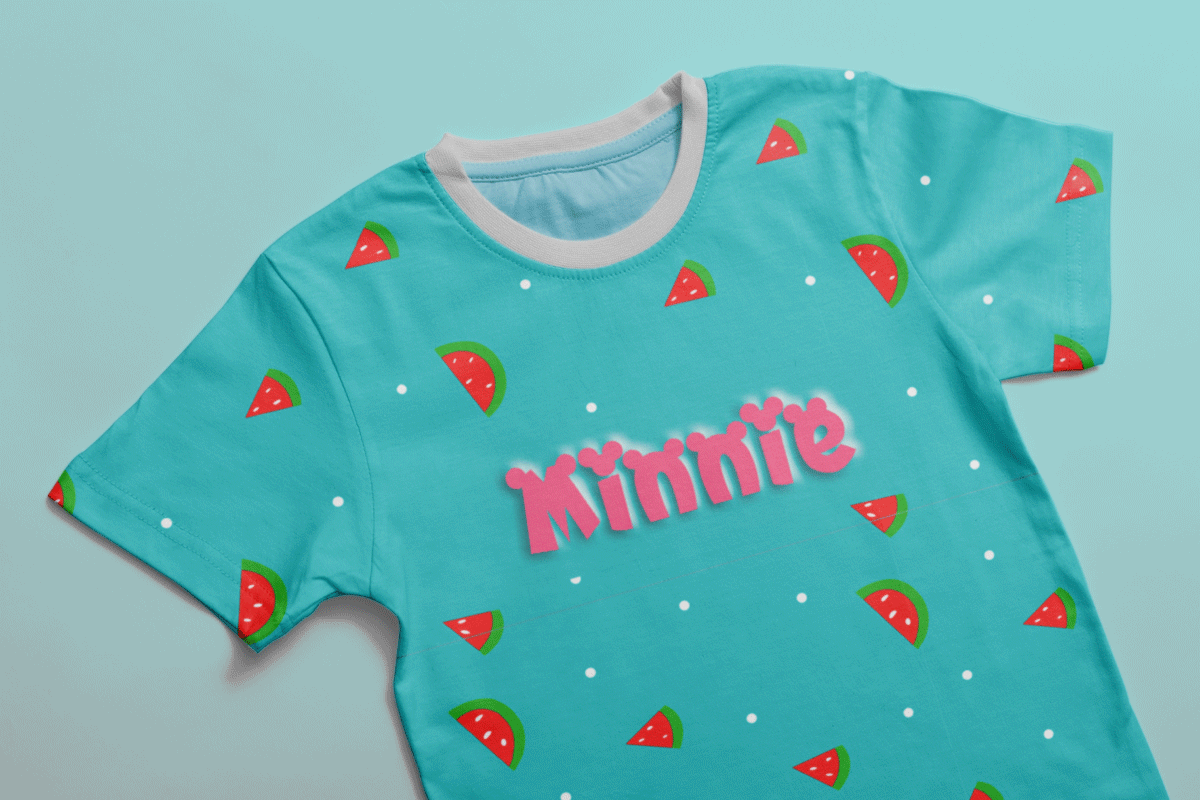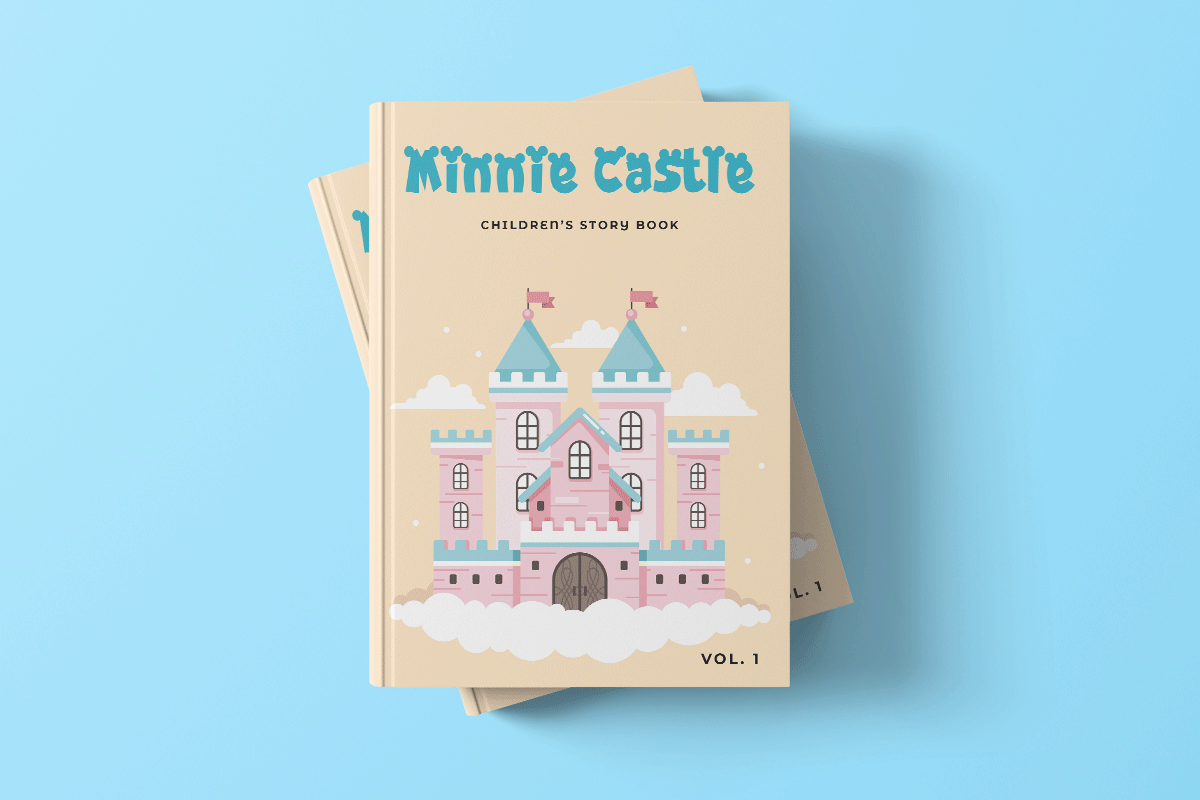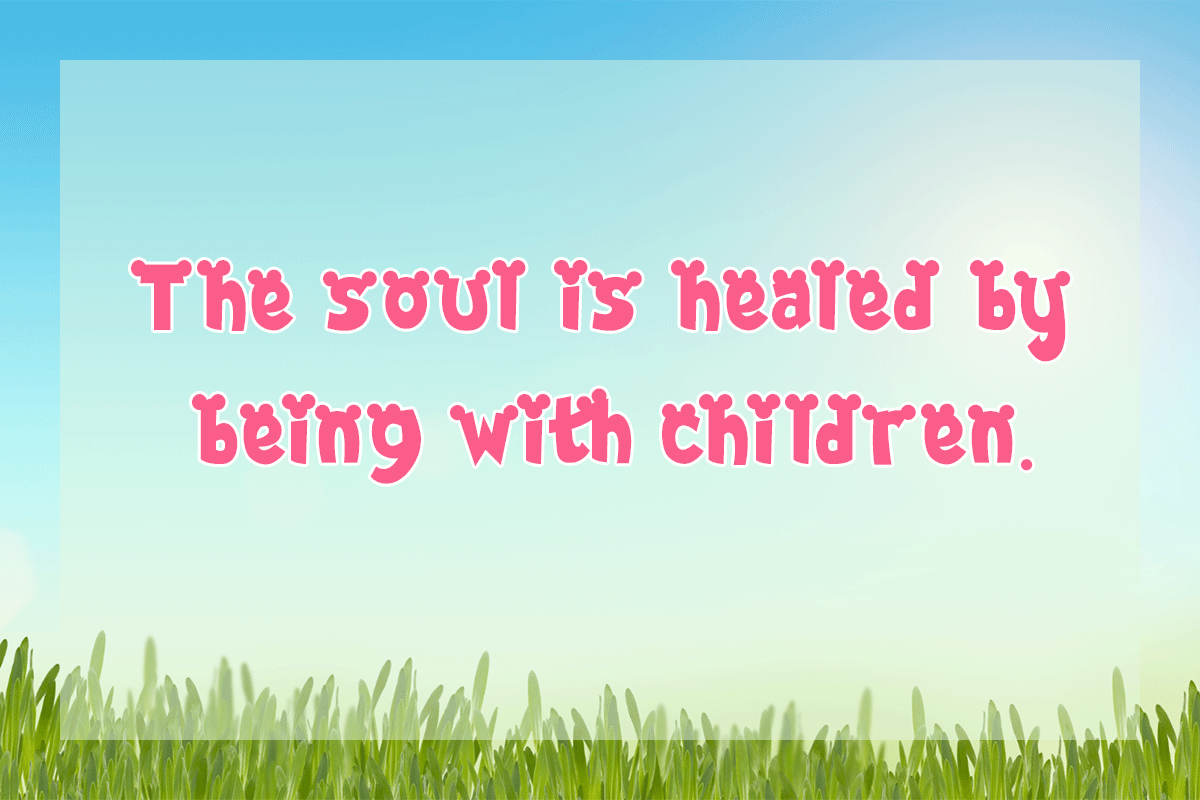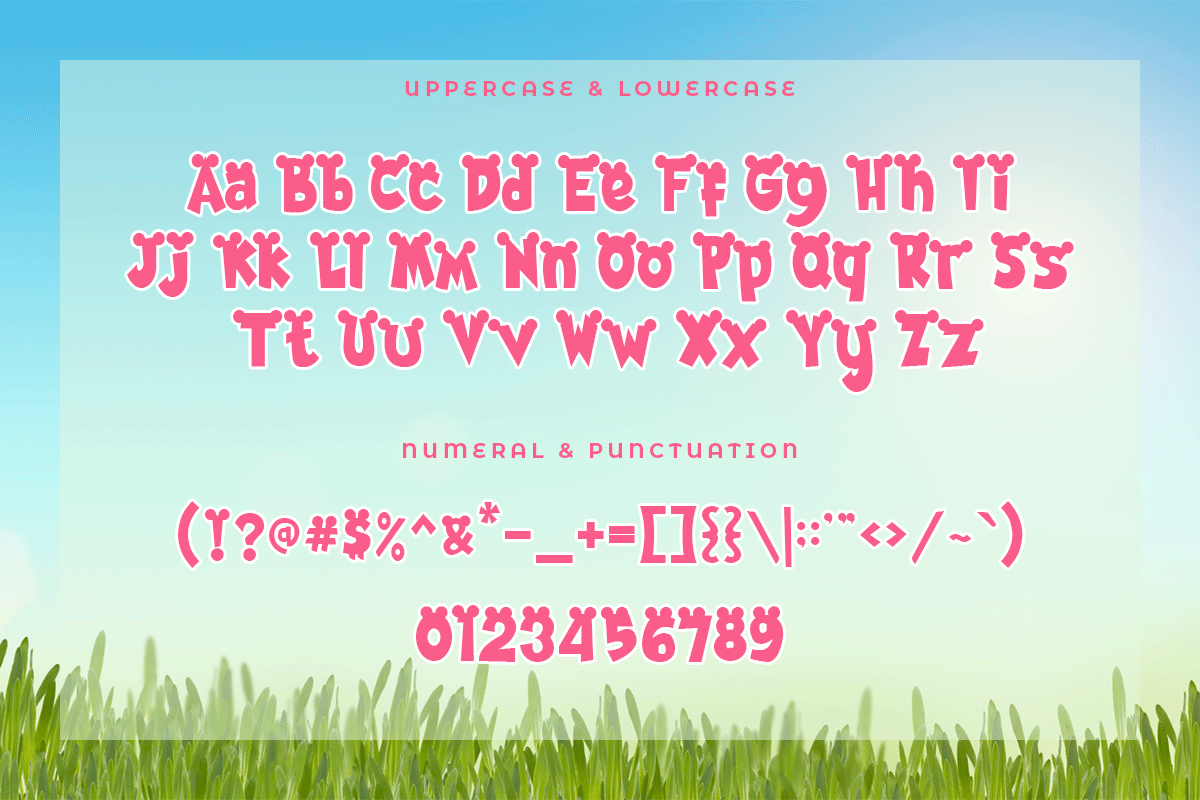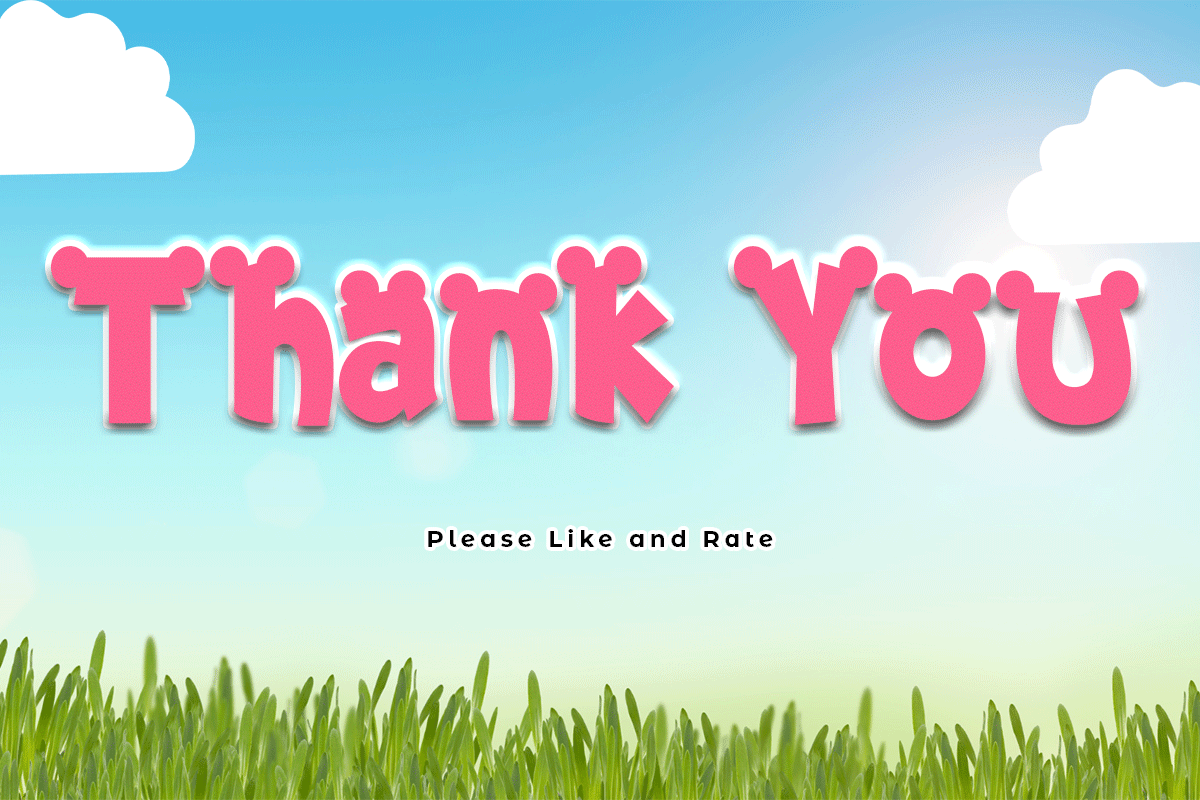
Minnie Cute Decorative Font is a typeface with a unique combination. Decorated with a cute look, this typeface inspired by the Mickey Mouse cartoon is suitable for all kinds of children's activities. It looks modern with additions like Mickey Mouse cartoon ears or head. This extraordinary typographical expression will leave an unforgettable impression on children's minds. You can use this font for all kinds of printing purposes, such as school supplies, bags, pencil cases, story books, textbooks, and school wall hangings. When placed on various items, this fun and eye-catching typographic design will catch the children's attention. Because of this, it is one of the best fonts to use for any product that is targeted toward children. Minnie Cute Decorative Font can be used effectively in the digital world. This font is also suitable for individuals and companies who want to create games for children or those who require to produce a movie or video streaming service for a young audience. Our display fonts collection is compatible to use as Figma fonts, Canva fonts, Freepik Fonts, and Adobe Fonts]. They also work as Windows Fonts, and Apple Fonts. For your social media needs, you can use and install fonts in our collection of display and decorative typography to use as Instagram Fonts, Facebook Fonts, and Twitter Fonts.